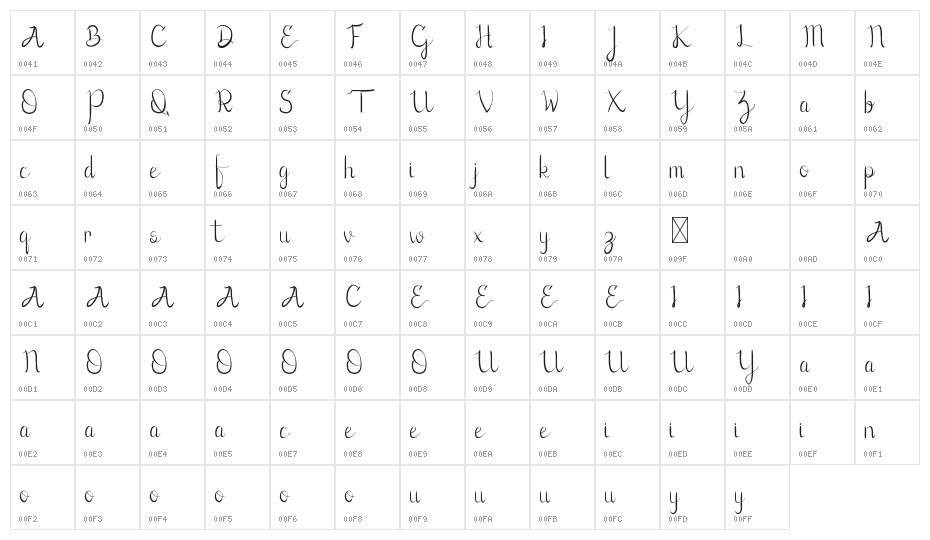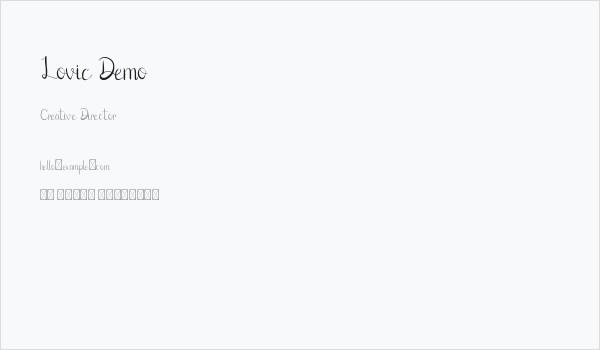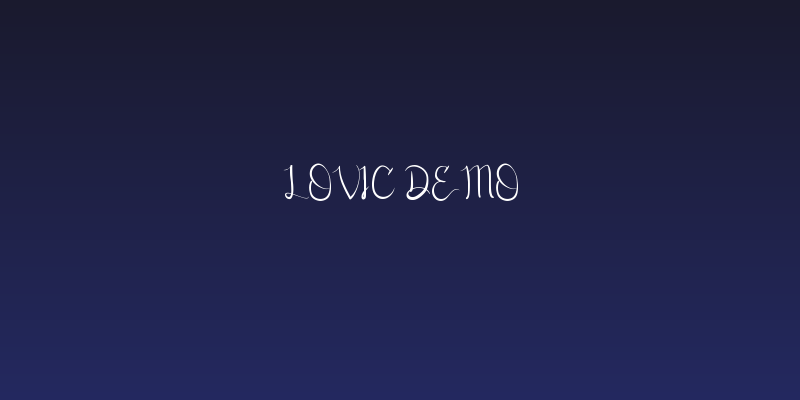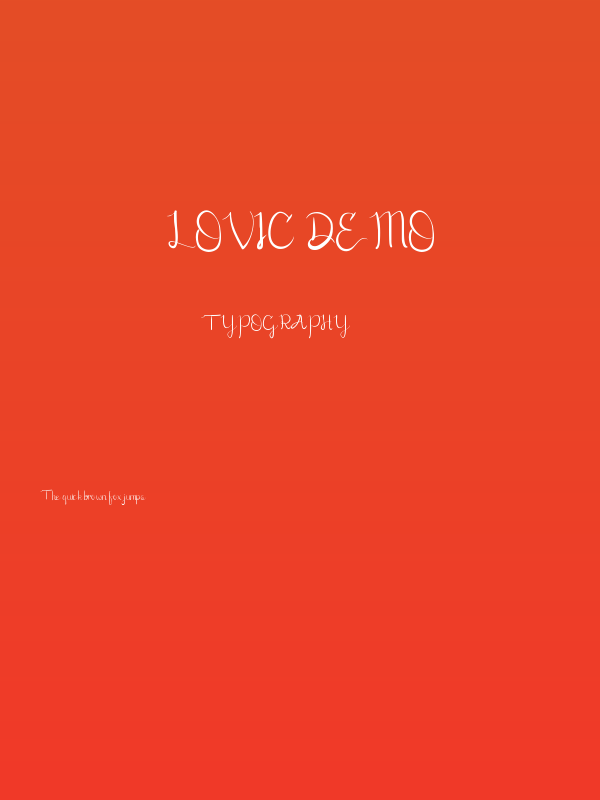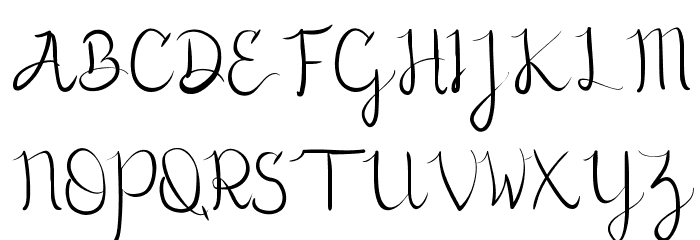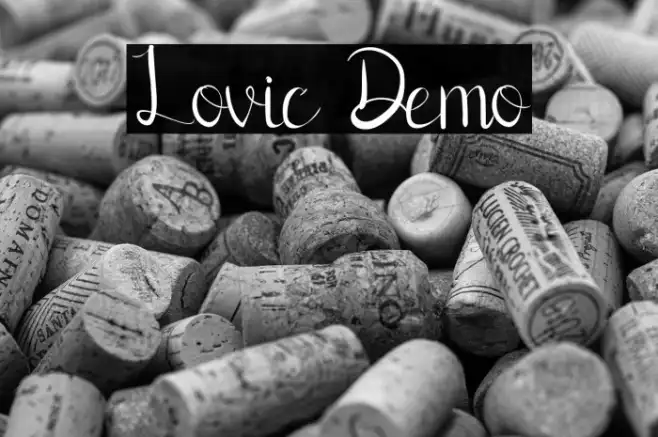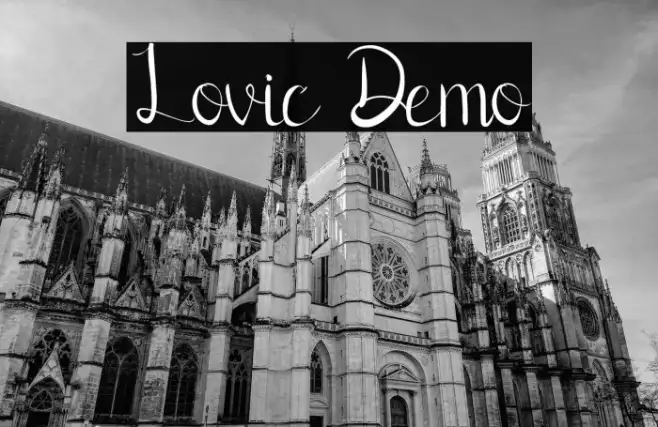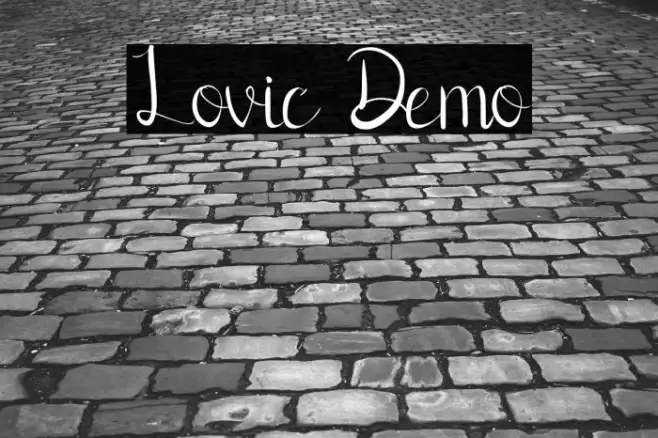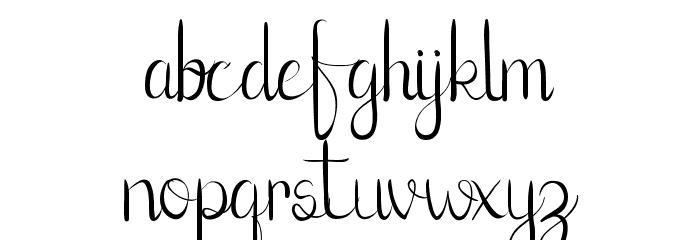
Lovic Demo Font
Lovic Demo Description
This font features an elegant and flowing script style, characterized by its graceful curves and fluid strokes. The uppercase letters exhibit a sophisticated flair with elongated lines and subtle loops, while the lowercase letters maintain a consistent rhythm with gentle connections. The overall appearance is both artistic and refined, making it suitable for creative and formal applications. The font's unique charm lies in its ability to convey a sense of elegance and personal touch, ideal for projects that require a distinctive and stylish presentation.